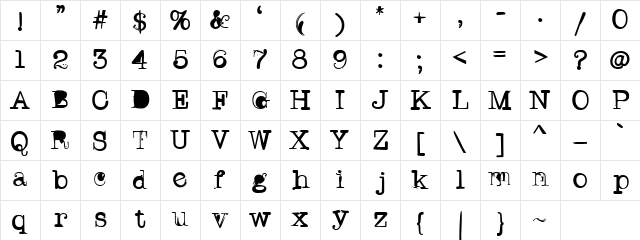
Design Context for TWriterTwo
TWriterTwo is a composed and adaptable typeface that performs quietly and consistently across a wide range of design contexts.
Pro Tip: Use TWriterTwo in both headline and body roles to test its range before committing to a single application.